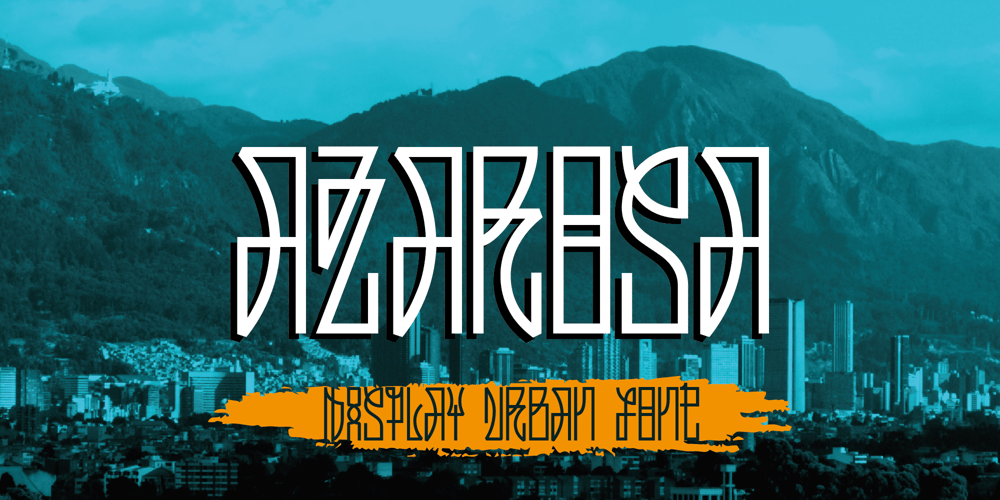
Azarosa
Azarosa font
Azarosa Font Family was designed by Manuel Nieves and published by Trifásica Studio. Azarosa contains 1 styles and family package options. Azarosa (a.sa.ˈɾo.sa) is a display font inspired by the work of the urban artist Arkano in Bogotá (Colombia). The orthogonal shapes of a continuos line adapt themselves pretty well to the architecture of the city, and the not common ductus of the letters gives a very attractive visual texture, which is always seen before read. Visually, Azarosa is related to the graffiti movement pichação in Brasil and with some nordic runes; this is why this visually “encrypted” font is not easy to read, ideal for underground purposes.